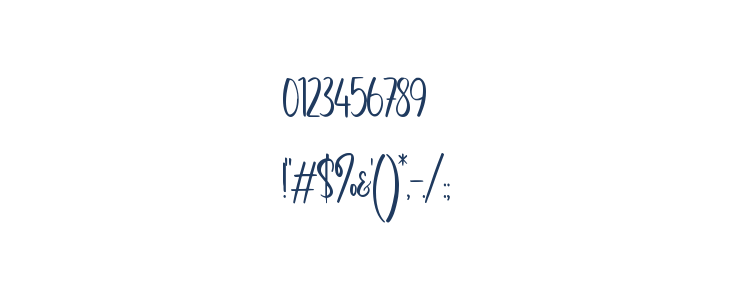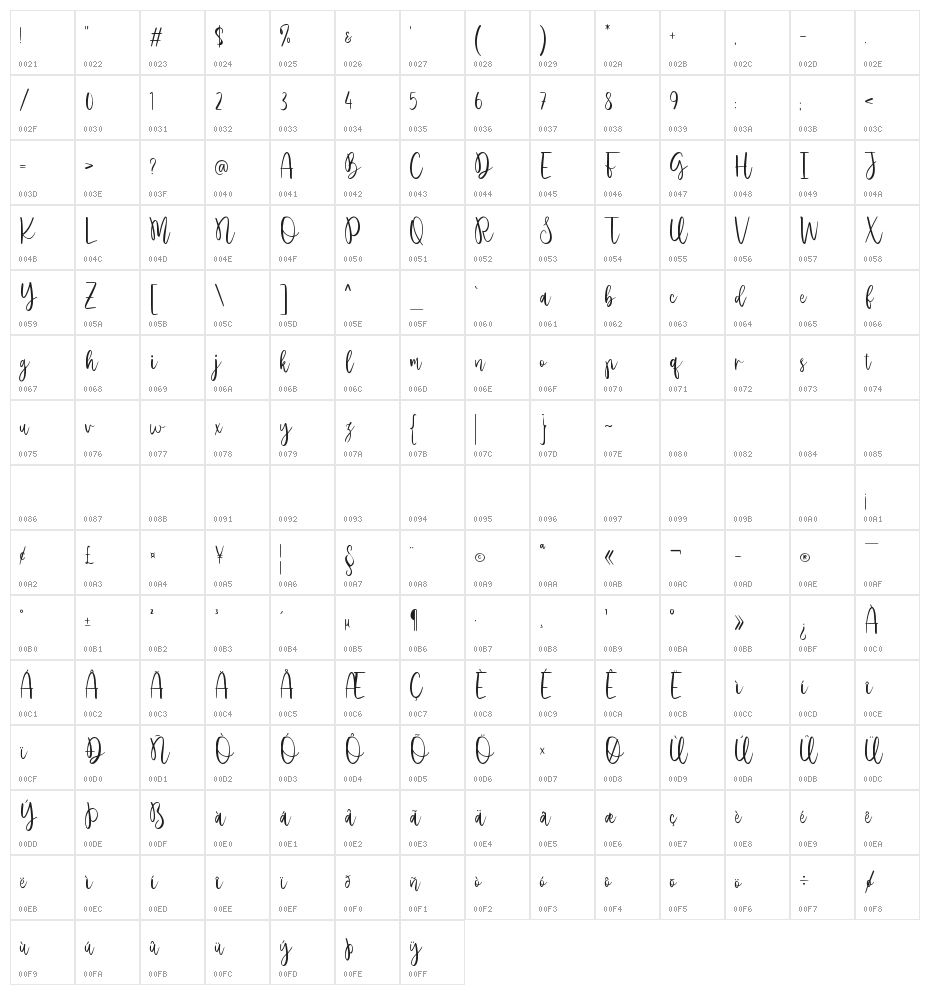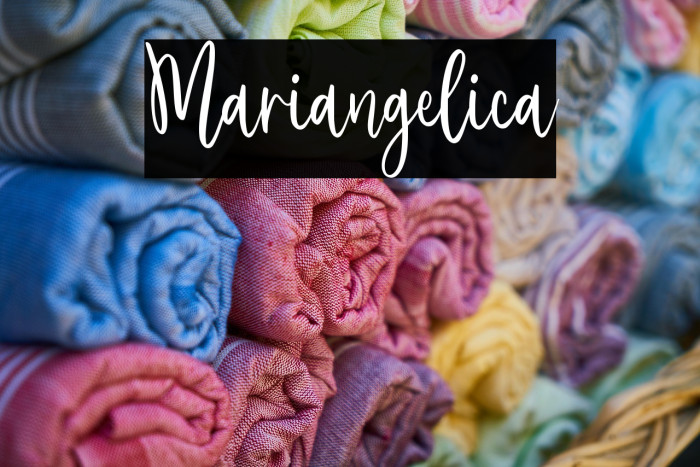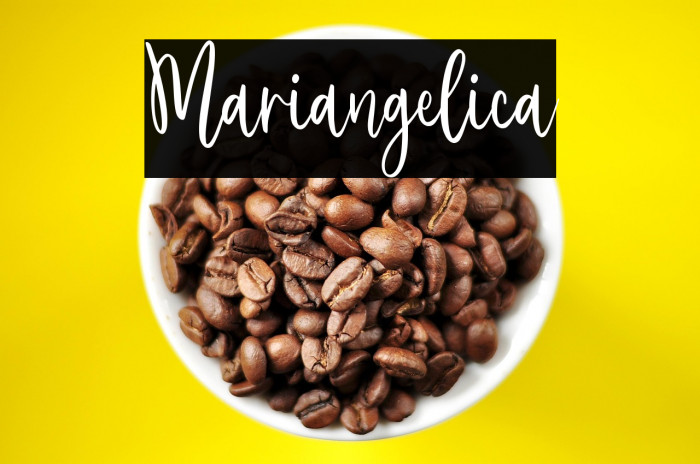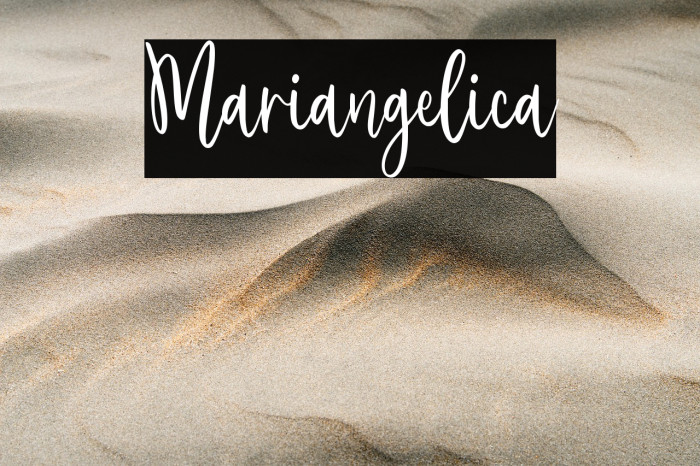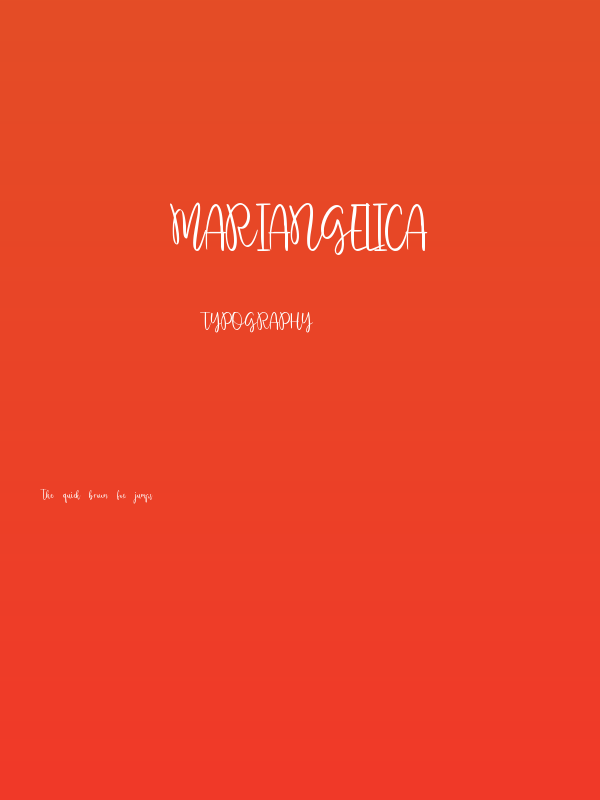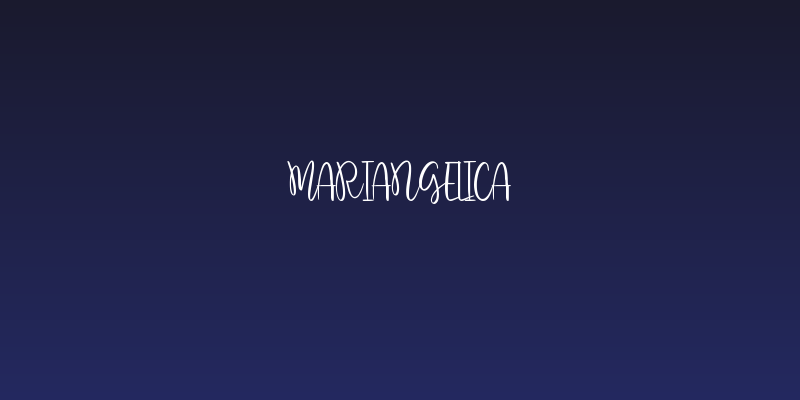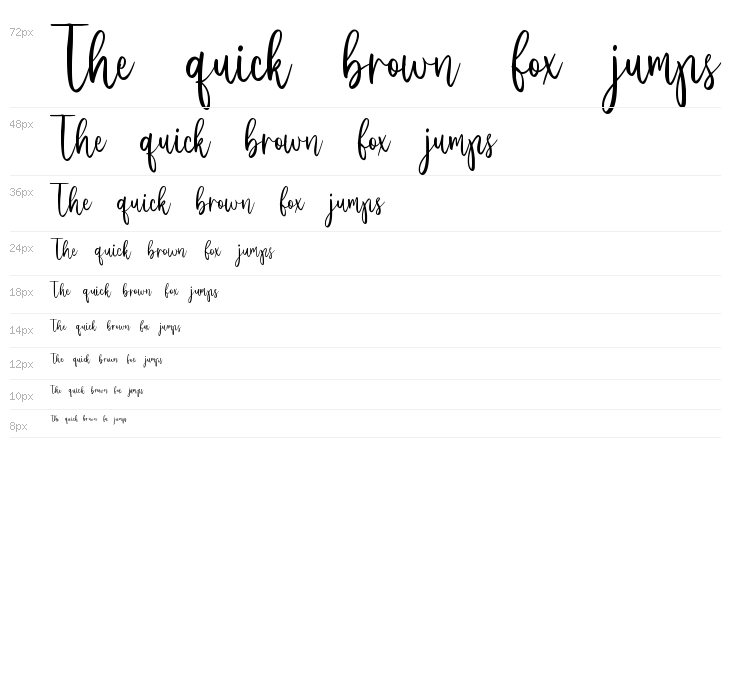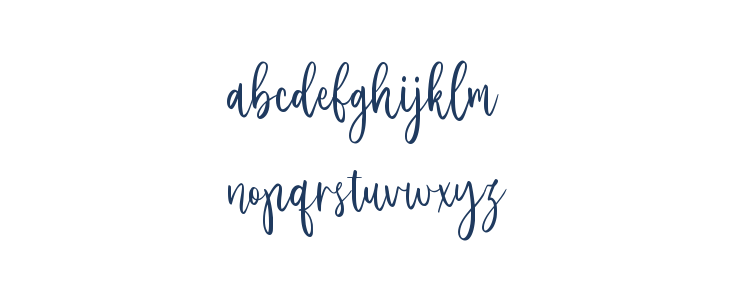
Mariangelica Font
Mariangelica Description
This font features a playful and elegant script style with a handwritten appearance. The letters are fluid and connected, giving it a natural and personal touch. The uppercase letters are bold and slightly larger, while the lowercase letters maintain a consistent flow. The numbers and special characters complement the overall style, maintaining the same fluidity and elegance. This font is perfect for adding a personal touch to any design, with its unique and stylish curves.
| Overall Style | Elegant and Playful |
| Proposed Projects | Ideal for wedding invitations, greeting cards, logos, and branding projects that require a personal and elegant touch. |